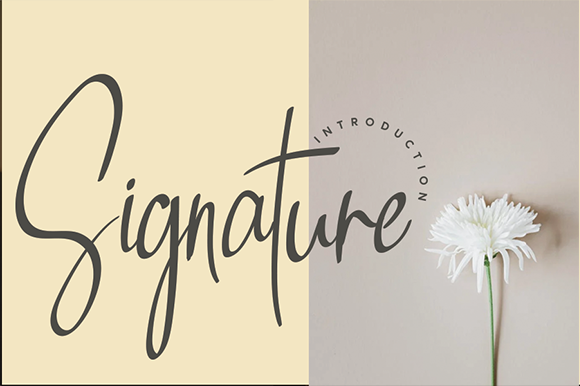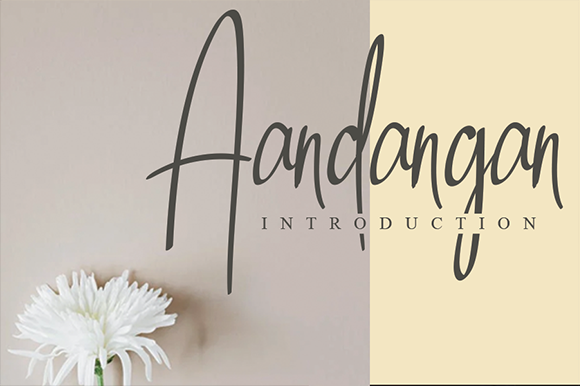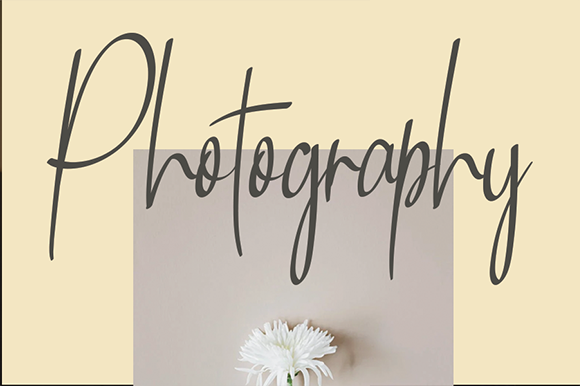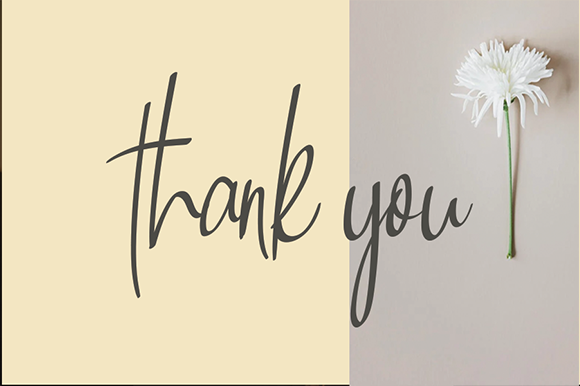
Introducing Berillamtia Font: The Perfect Blend of Modern and Quirky
In the world of typography, fonts play a crucial role in conveying the tone and personality of a brand. For designers and crafters, finding the right font can make all the difference in creating visually appealing and engaging projects. If you’re on the hunt for a modern and fun handwritten font that adds a touch of quirkiness to your designs, look no further than Berillamtia Font.
What is Berillamtia Font?
Berillamtia is a modern and fun handwritten font, carefully crafted using a brush pen to achieve a clean and unique look. This font is the brainchild of a talented designer who aimed to create a typeface that is both elegant and playful. With its smooth lines and subtle imperfections, Berillamtia Font is perfect for adding a personal touch to your designs.
Key Features of Berillamtia Font
- Modern and Fun: Berillamtia Font boasts a fresh and contemporary look that’s sure to grab attention. Its fun and playful vibe makes it ideal for designs that require a touch of personality.
- Handwritten with a Brush Pen: The font’s handmade nature gives it a unique, organic feel that’s perfect for creating authentic and relatable designs.
- Clean and Quirky: Berillamtia Font strikes the perfect balance between cleanliness and quirkiness. Its clean lines and subtle imperfections make it versatile and easy to read.
Use Cases for Berillamtia Font
Berillamtia Font is incredibly versatile and can be used in a variety of projects, including:
- Logos and Branding: Create a lasting impression with a custom logo that showcases your brand’s personality.
- Social Media Graphics: Elevate your social media presence with eye-catching graphics that feature Berillamtia Font.
- Crafty DIY Projects: Add a personal touch to your DIY projects, such as handmade cards, invitations, and crafts.
Why Choose Berillamtia Font?
With so many fonts available, why choose Berillamtia Font? Here are a few compelling reasons:
- Unique and Versatile: Berillamtia Font offers a distinctive look that’s both modern and timeless.
- Easily Readable: Despite its quirky nature, Berillamtia Font remains clean and easy to read, making it perfect for body text and headlines.
- Perfect for Creative Projects: Whether you’re a designer, crafter, or DIY enthusiast, Berillamtia Font is an excellent choice for adding a personal touch to your projects.
Tips for Using Berillamtia Font
To get the most out of Berillamtia Font, consider the following tips:
- Pair with Neutral Backgrounds: Let Berillamtia Font be the star of the show by pairing it with neutral backgrounds that won’t compete for attention.
- Experiment with Colors: Berillamtia Font looks great in a variety of colors. Don’t be afraid to experiment and find the perfect hue for your project.
- Mix and Match with Other Fonts: Berillamtia Font pairs well with other fonts. Try combining it with serif or sans-serif fonts for added visual interest.
Berillamtia Font is a modern and fun handwritten font that’s perfect for designers and crafters looking to add a touch of quirkiness to their projects. With its clean lines, subtle imperfections, and versatile nature, Berillamtia Font is an excellent choice for logos, branding, social media graphics, and crafty DIY projects. So why wait? Give Berillamtia Font a try and discover the perfect blend of modern and quirky for your next project.